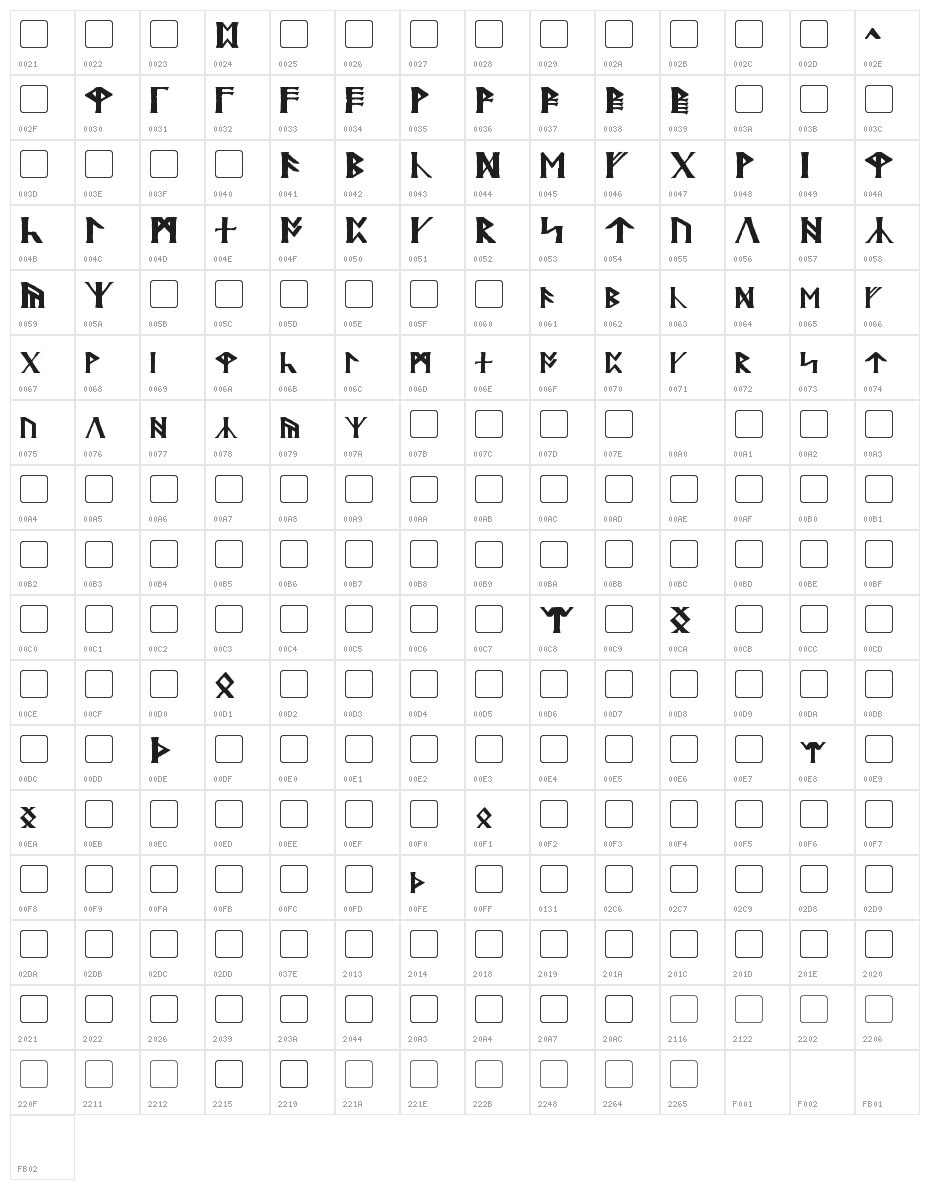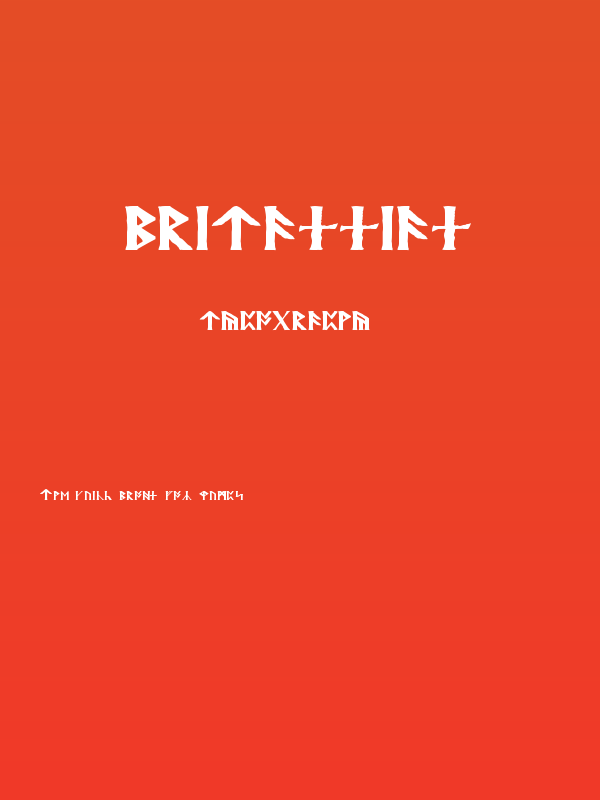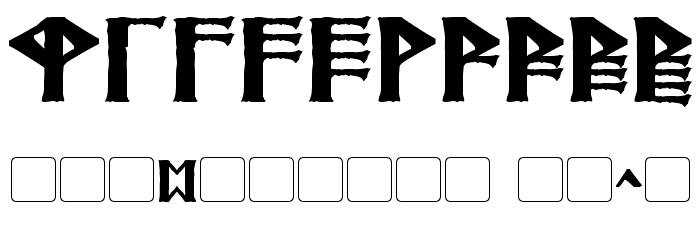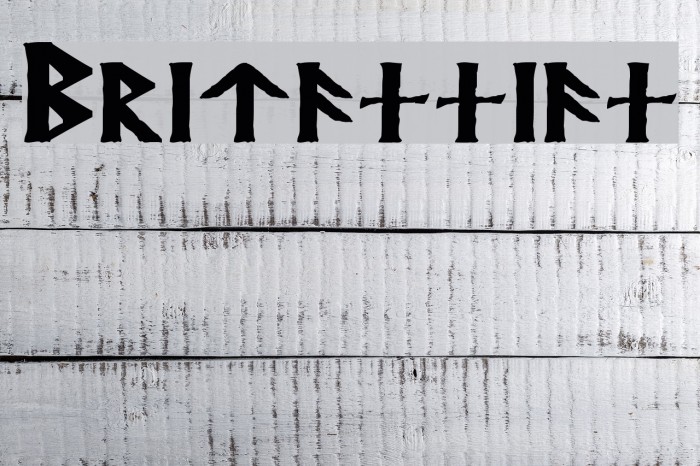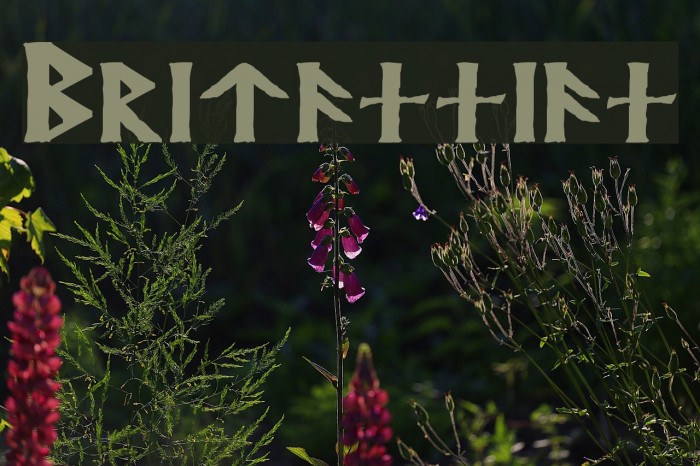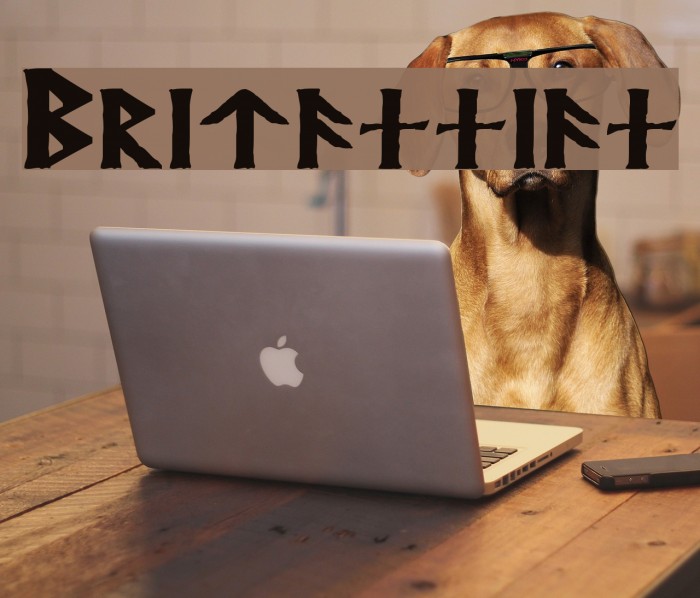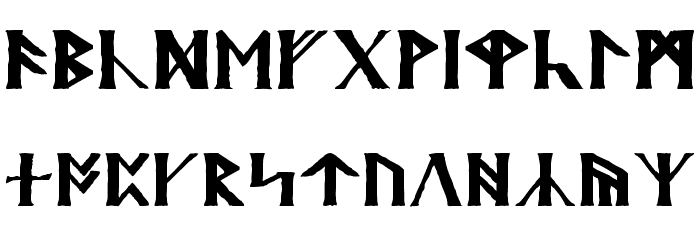
Britannian Font
Britannian Description
This font features a bold, angular design reminiscent of ancient runic alphabets. The characters are sharply defined with thick strokes and pointed edges, creating a strong, impactful appearance. The style evokes a sense of mystery and antiquity, suitable for projects that require a historical or fantasy theme. The uppercase and lowercase letters maintain a consistent style, with the numerals and special characters following the same design principles. The overall look is both decorative and legible, making it versatile for various creative applications.
| Proposed Projects | Ideal for fantasy book covers, historical documentaries, themed event posters, and video game graphics. |